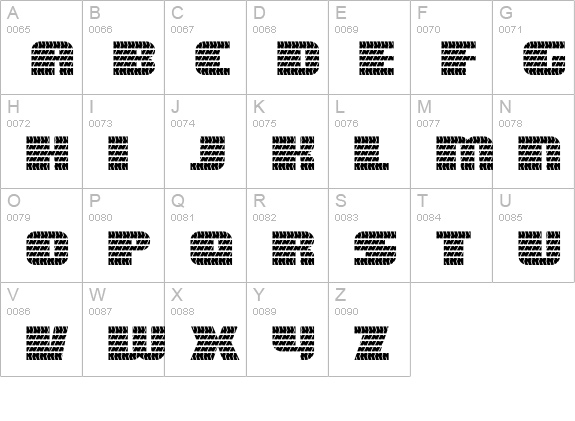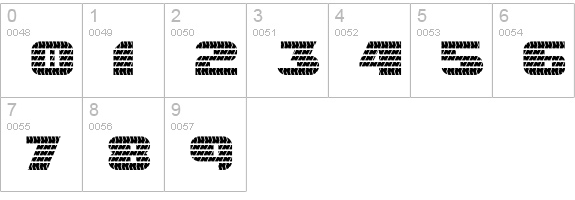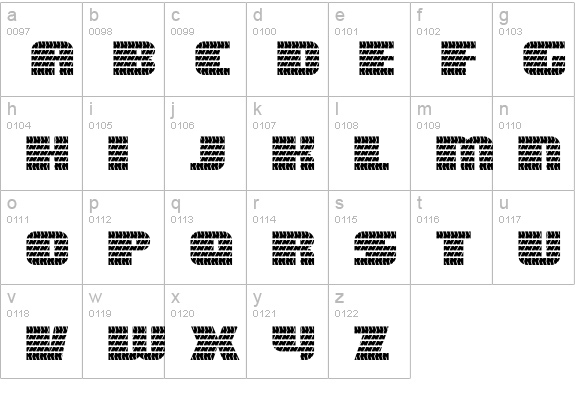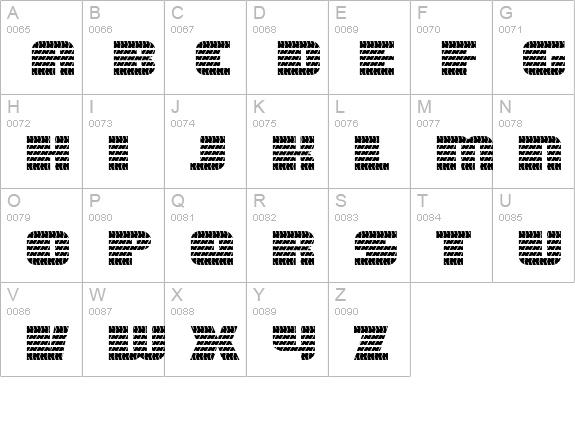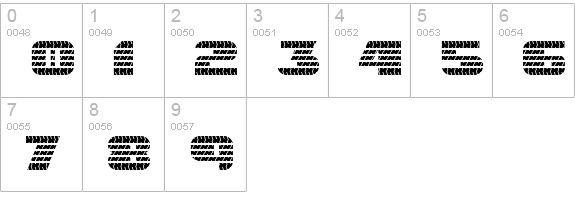
Eagle GT II Font Details
Eagle GT II font is a bold and dynamic typeface that exudes strength and confidence. With its sharp edges and sleek curves, this font commands attention and makes a bold statement. Whether used for headlines, logos, or posters, Eagle GT II font is sure to leave a lasting impression. What sets Eagle GT II font apart is not just its striking design, but also the fact that it is available for free. Yes, you read that right – this incredible font can be downloaded without any cost. Thanks to FontsMarket.com, you can easily access and download Eagle GT II font to enhance your designs and bring them to life. With its versatility, Eagle GT II font can be utilized across a wide range of projects. Whether you're designing a sports-themed poster, an edgy logo for a fashion brand, or even a modern website, this font will add an extra layer of impact and professionalism. The carefully crafted letterforms of Eagle GT II font ensure legibility even at smaller sizes, making it suitable for both print and digital applications. Its bold presence on the page demands attention and captivates the viewer, ensuring that your message is delivered with utmost clarity and power. So why wait? Don't miss out on the opportunity to elevate your designs with the striking and free Eagle GT II font. Visit FontsMarket.com today and download this incredible typeface to unlock a world of creative possibilities.